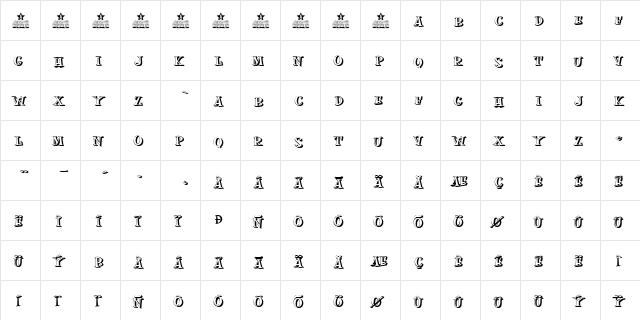
MOSKITOES SHADOW Regular
Design Context for MOSKITOES SHADOW Typeface
MOSKITOES SHADOW brings ornamental detail and strong personality to headlines and identities, where visual impact matters more than quiet functionality.
Font Pairing: Pair with a clean neutral sans-serif for body copy to let MOSKITOES SHADOW's character lead without overwhelming the composition.
Pro Tip: Use MOSKITOES SHADOW exclusively at display sizes — it was designed to be seen, not read at length. Let a neutral companion handle body copy.